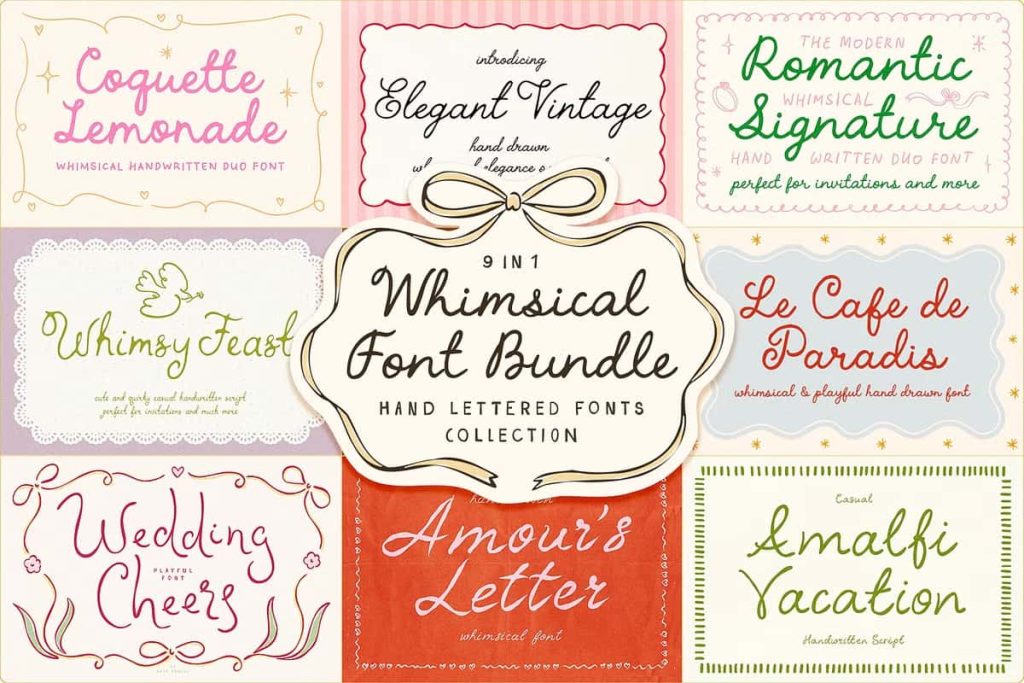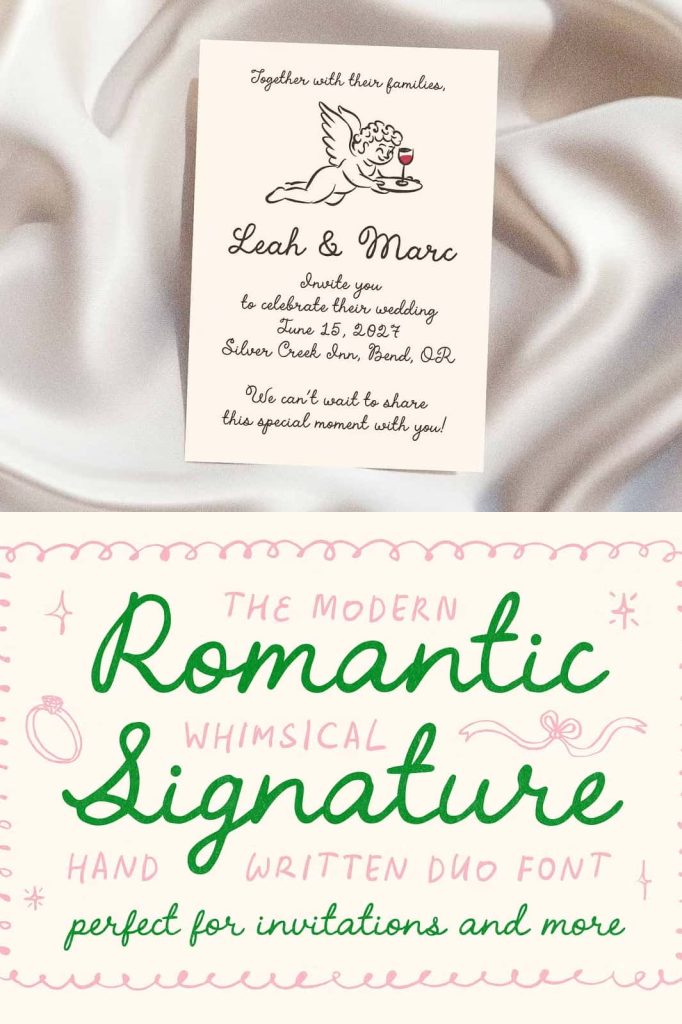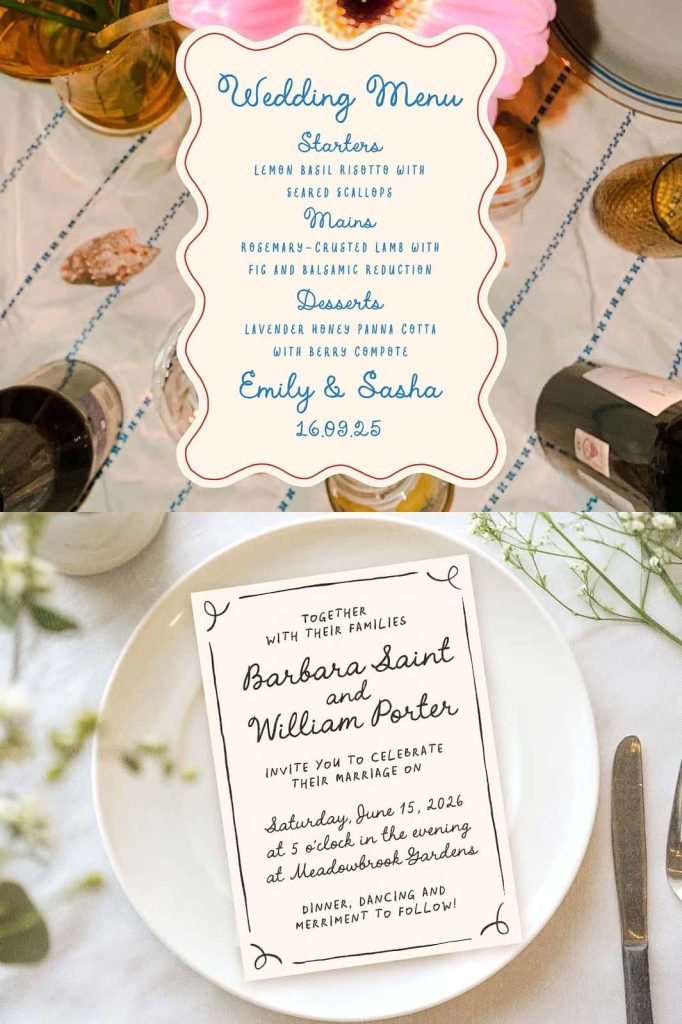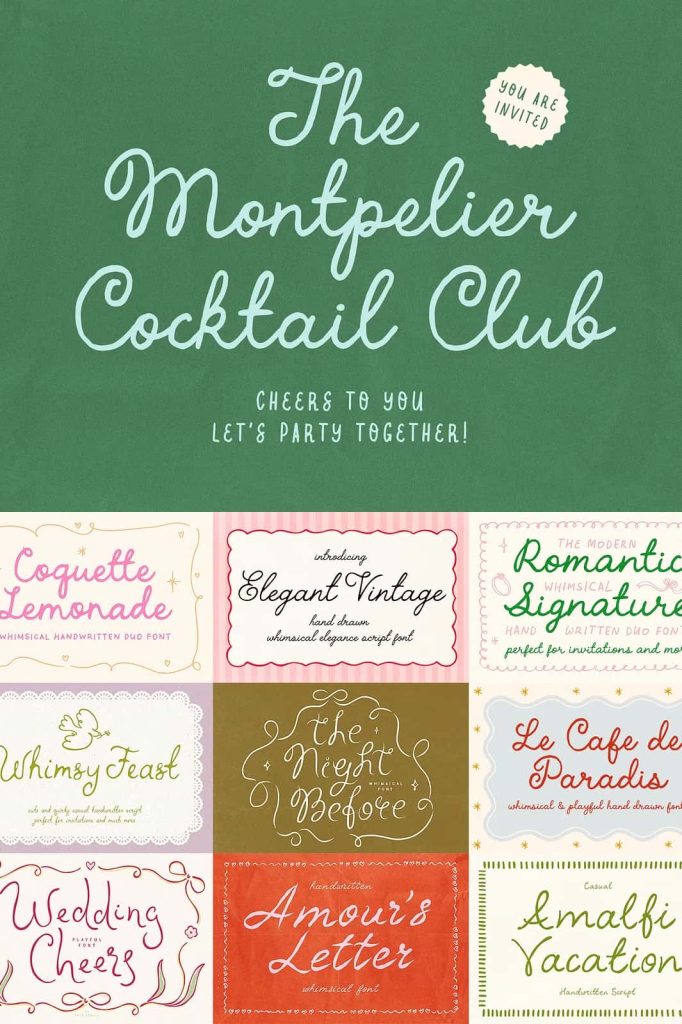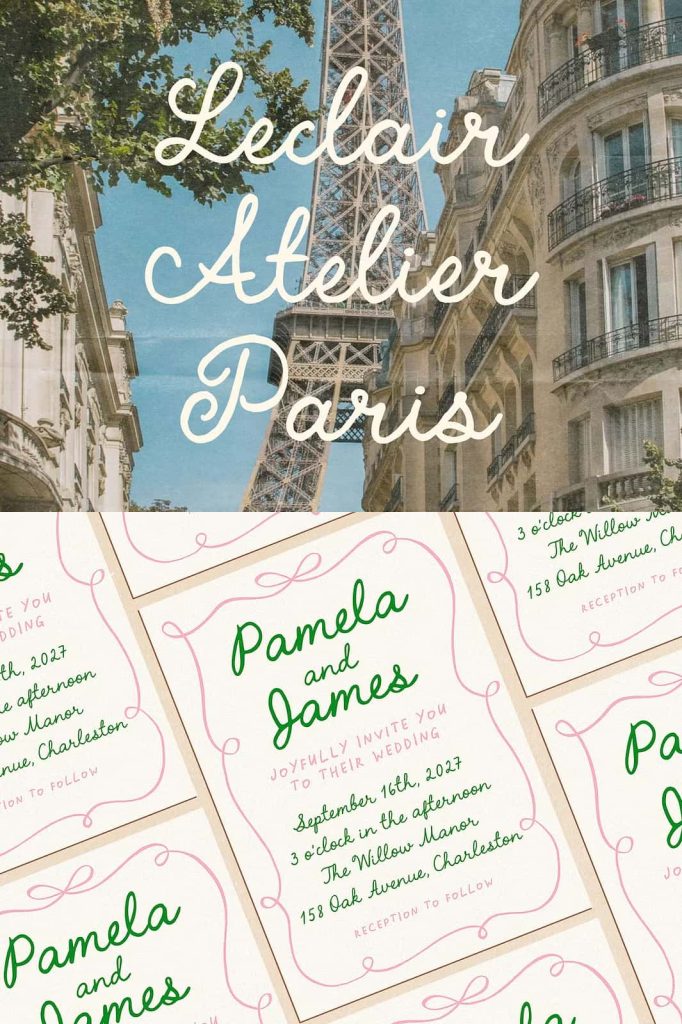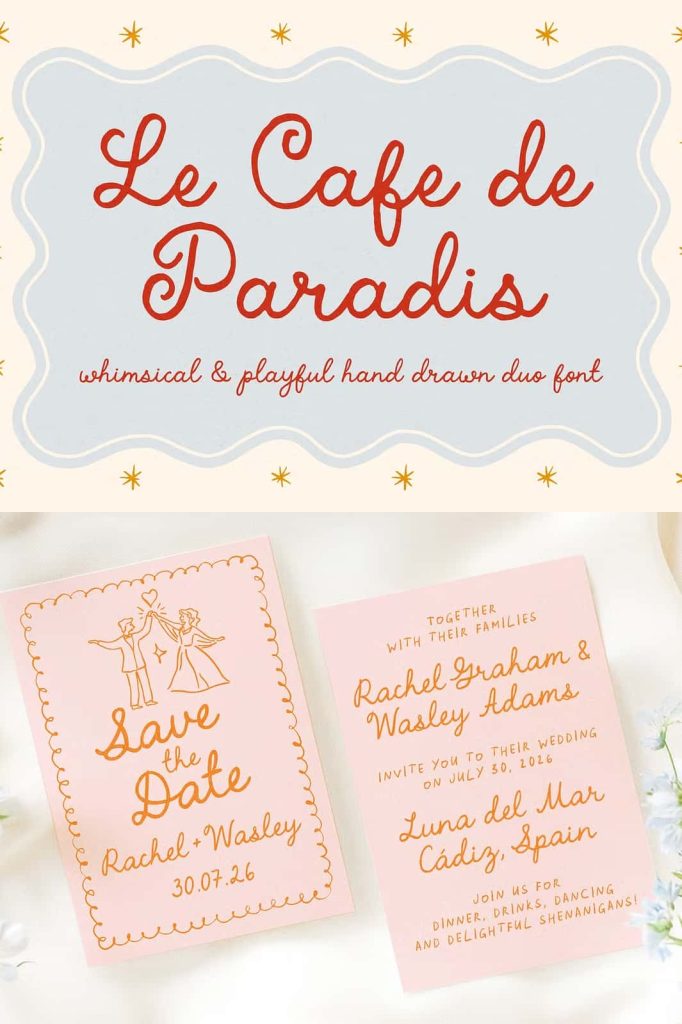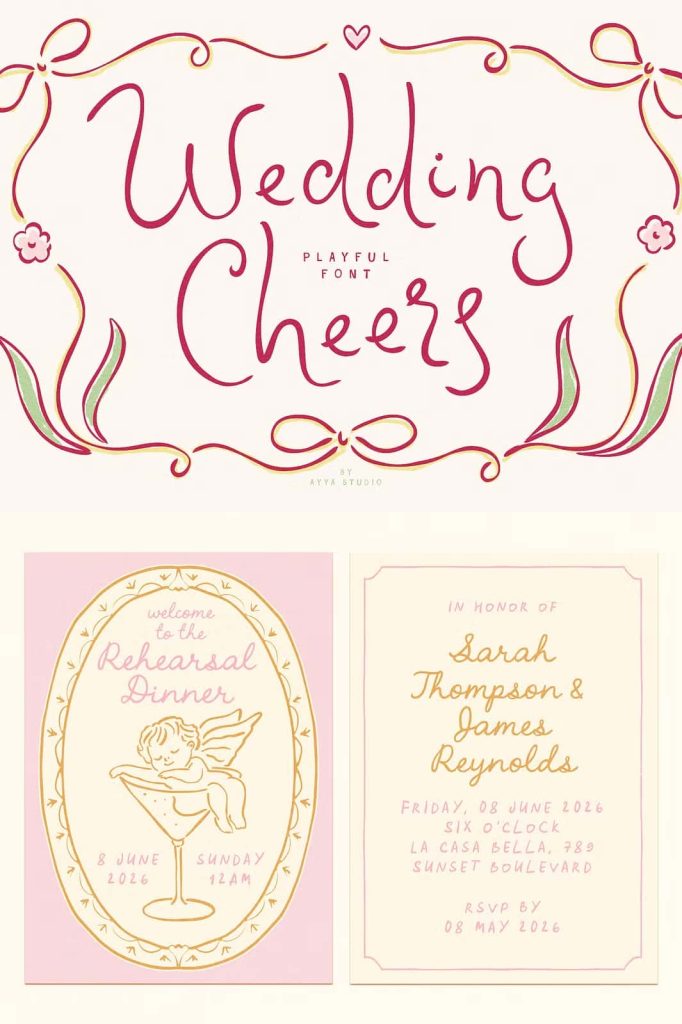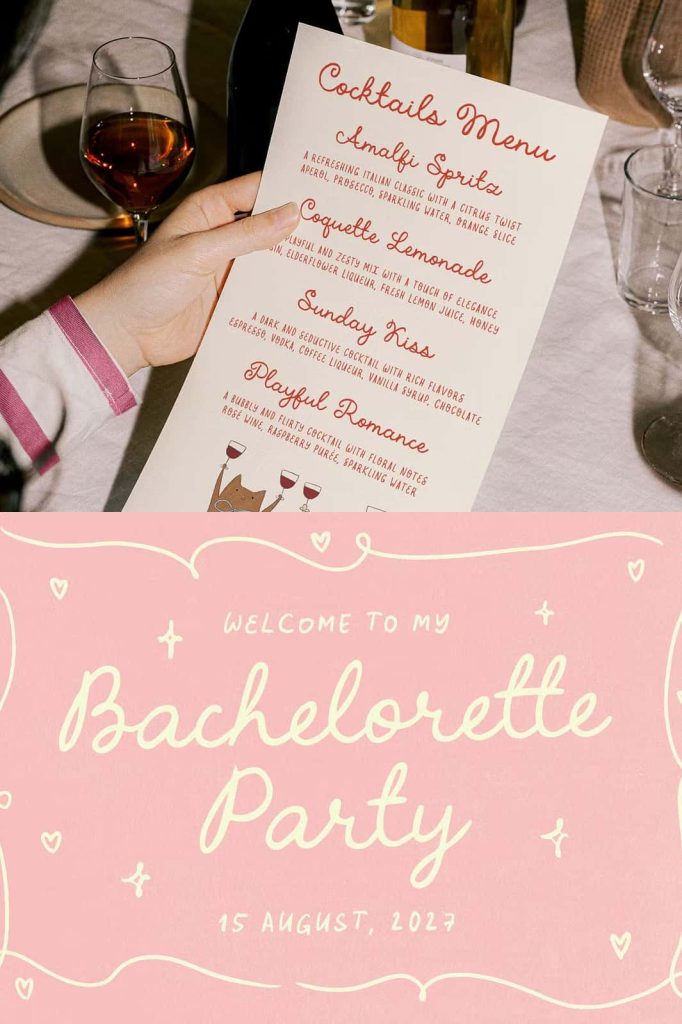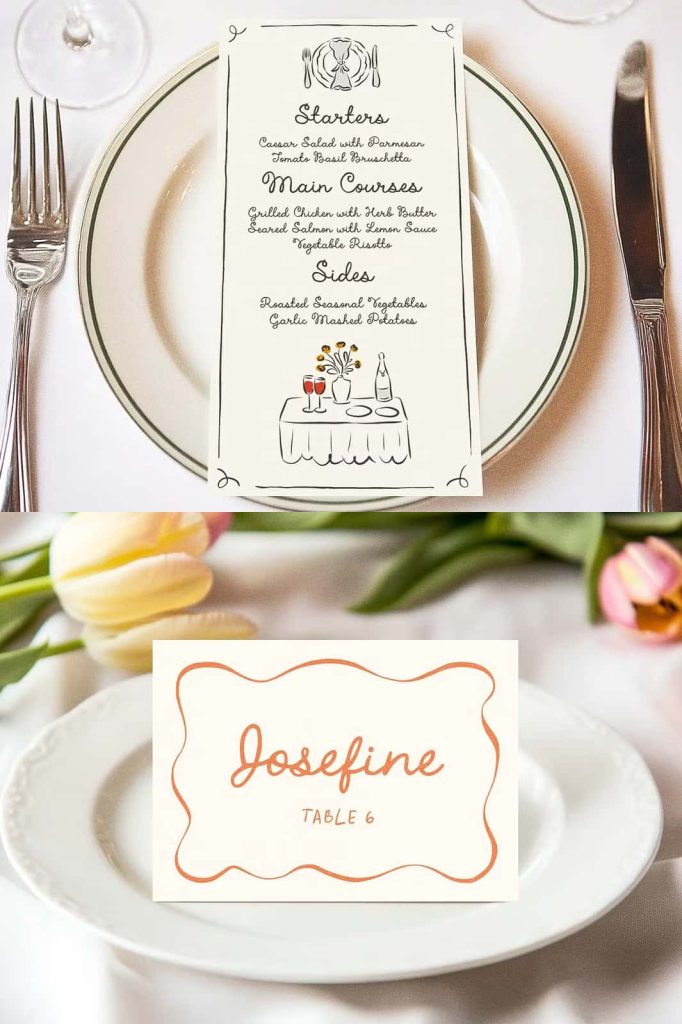
Whimsical Handwritten Font Bundle for Creative and Expressive Design
The Whimsical Handwritten Font Bundle is a carefully curated collection of playful, expressive, and personality-driven fonts designed to elevate creative projects. Inspired by natural handwriting and artistic lettering, this bundle captures an authentic human touch that adds warmth, charm, and originality to any design. Each font in the bundle delivers a unique character while maintaining a cohesive style that supports modern creative workflows.
A Playful Typography Collection with Strong Visual Impact
This whimsical handwritten font bundle brings energy and creativity to typography through fluid strokes, organic curves, and expressive letterforms. Every font reflects a hand-drawn aesthetic that feels personal and approachable, making designs more engaging and memorable. The fonts avoid rigid structures, allowing text to flow naturally and communicate emotion more effectively.
Designed with versatility in mind, the bundle includes multiple handwritten styles that range from light and playful to bold and expressive. This variety gives designers the freedom to experiment with tone and mood while maintaining consistency across different visual assets. Whether the goal is fun, friendly, artistic, or casual, this font bundle delivers the flexibility needed to match creative intent.
Perfect for Branding, Invitations, and Creative Projects
The Whimsical Handwritten Font Bundle works exceptionally well for branding projects that require a personal and authentic voice. Logos, brand identities, packaging, and promotional materials benefit from the natural charm and handcrafted feel these fonts provide. The handwritten style helps brands appear more relatable, approachable, and emotionally connected to their audience.
For invitations and stationery design, this bundle adds a distinctive artistic touch. Wedding invitations, birthday cards, greeting cards, and event announcements feel more intimate and memorable when paired with handwritten typography. The fonts help transform simple messages into expressive visual statements that leave a lasting impression.
Ideal for Digital Content and Social Media
In digital design, the Whimsical Handwritten Font Bundle enhances visual storytelling across social media, websites, and digital marketing materials. The fonts perform well on screens, maintaining readability while delivering personality and style. Social media posts, quotes, banners, and promotional graphics gain a handcrafted look that stands out in crowded digital feeds.
Content creators, bloggers, and influencers can use these fonts to establish a recognizable and consistent visual identity. The handwritten aesthetic supports creative expression while maintaining clarity, making it easier to connect with audiences on a more personal level.
Designed for Creative Freedom and Easy Use
Each font in this bundle is crafted with attention to balance, spacing, and legibility. While the style remains playful and free-flowing, the fonts are optimized for practical use across both print and digital formats. Designers can confidently use them for headlines, short paragraphs, overlays, and decorative elements without sacrificing readability.
The bundle encourages experimentation and creativity. Fonts can be layered, paired with clean sans-serif typefaces, or combined with illustrations and textures to create visually rich compositions. This adaptability makes the bundle a valuable resource for designers, artists, small business owners, and creative entrepreneurs.
A Versatile Typography Bundle with Lasting Appeal
The Whimsical Handwritten Font Bundle is more than just a collection of fonts; it is a creative toolkit designed to inspire originality and expression. Its handcrafted aesthetic brings warmth and authenticity to modern design, helping projects feel more human and engaging. By combining playful character with functional design, this bundle supports a wide range of creative applications.
For anyone seeking handwritten fonts that balance charm, usability, and creative freedom, this bundle offers a reliable and inspiring solution. It empowers designers to communicate messages with personality, emotion, and visual impact across every project.